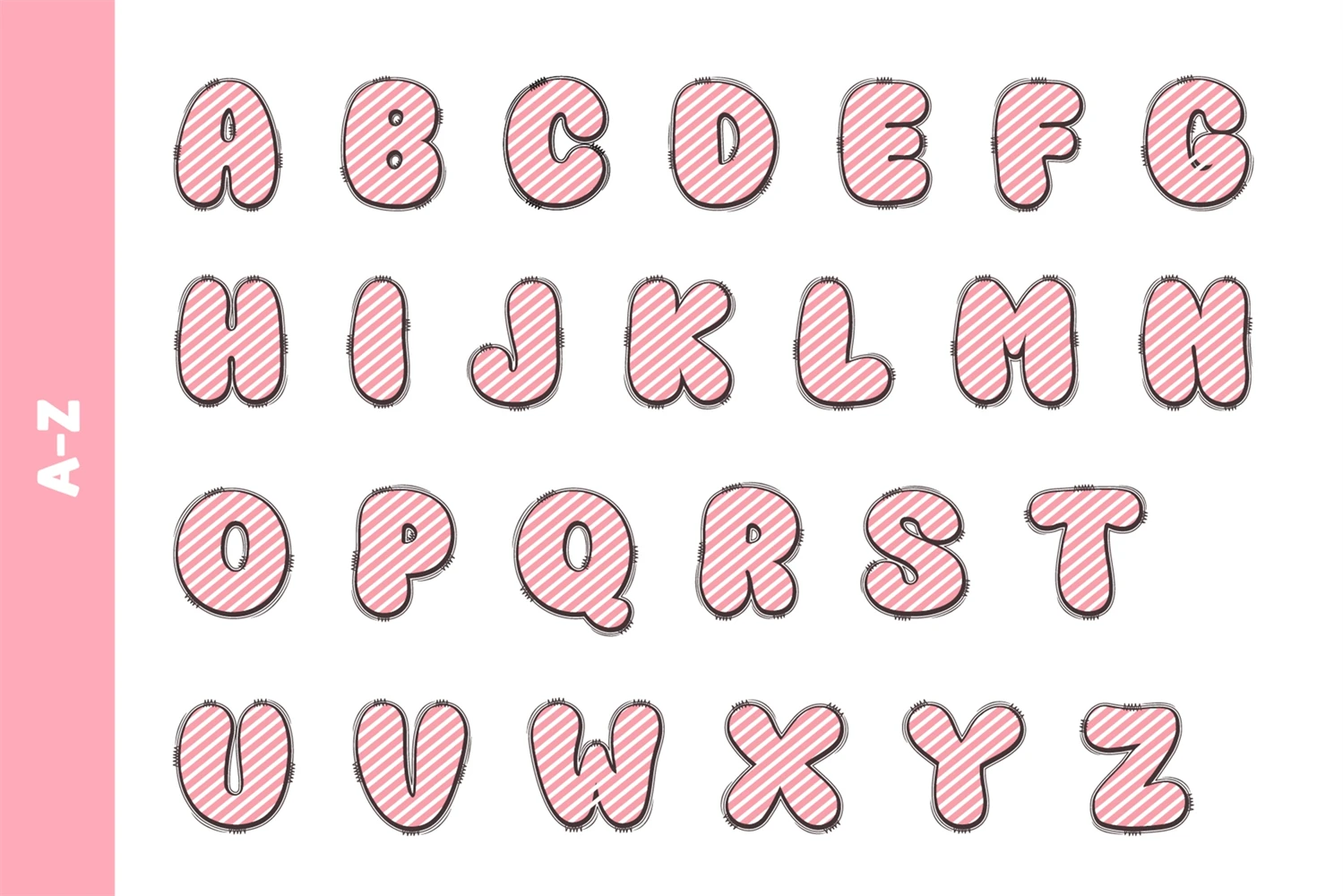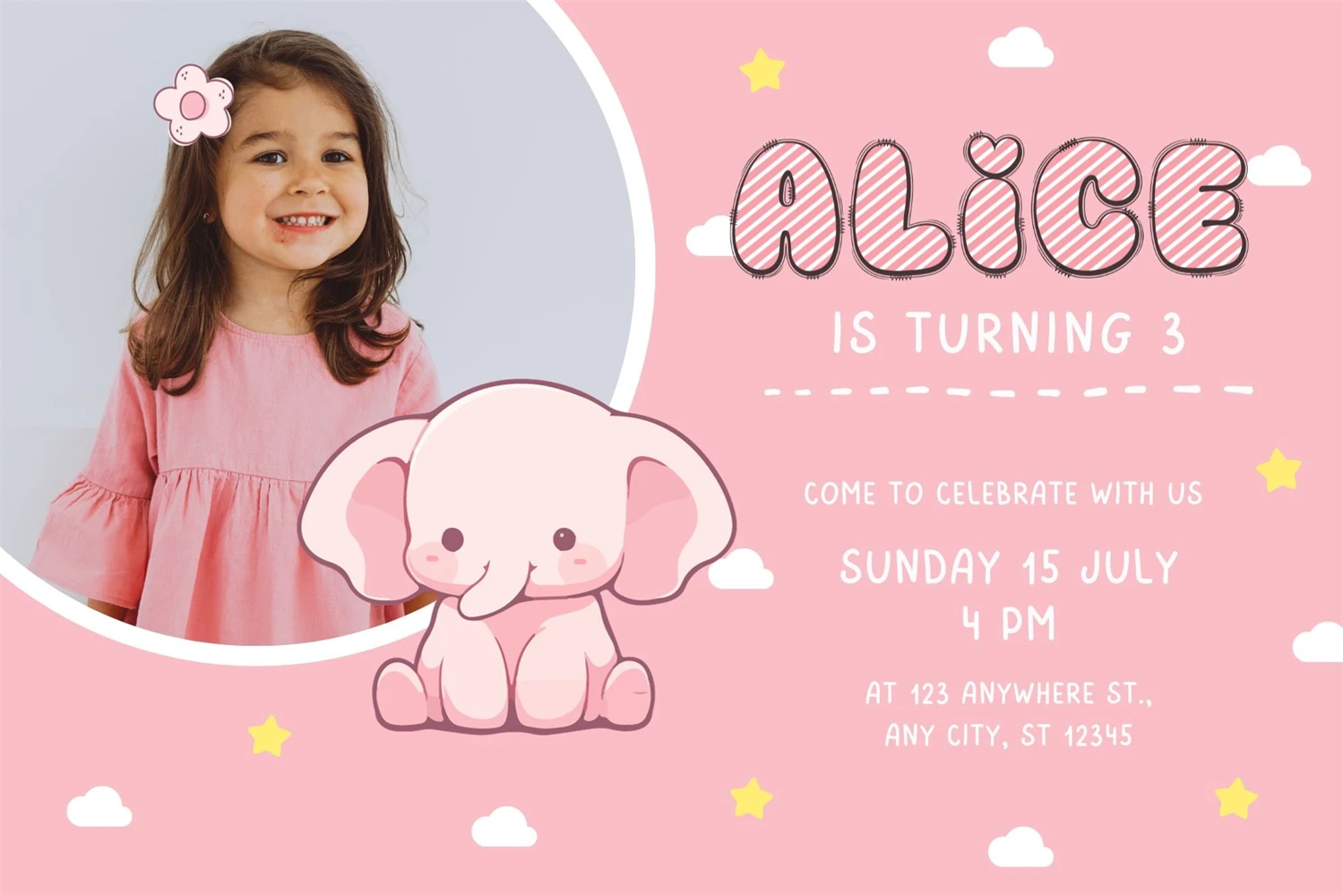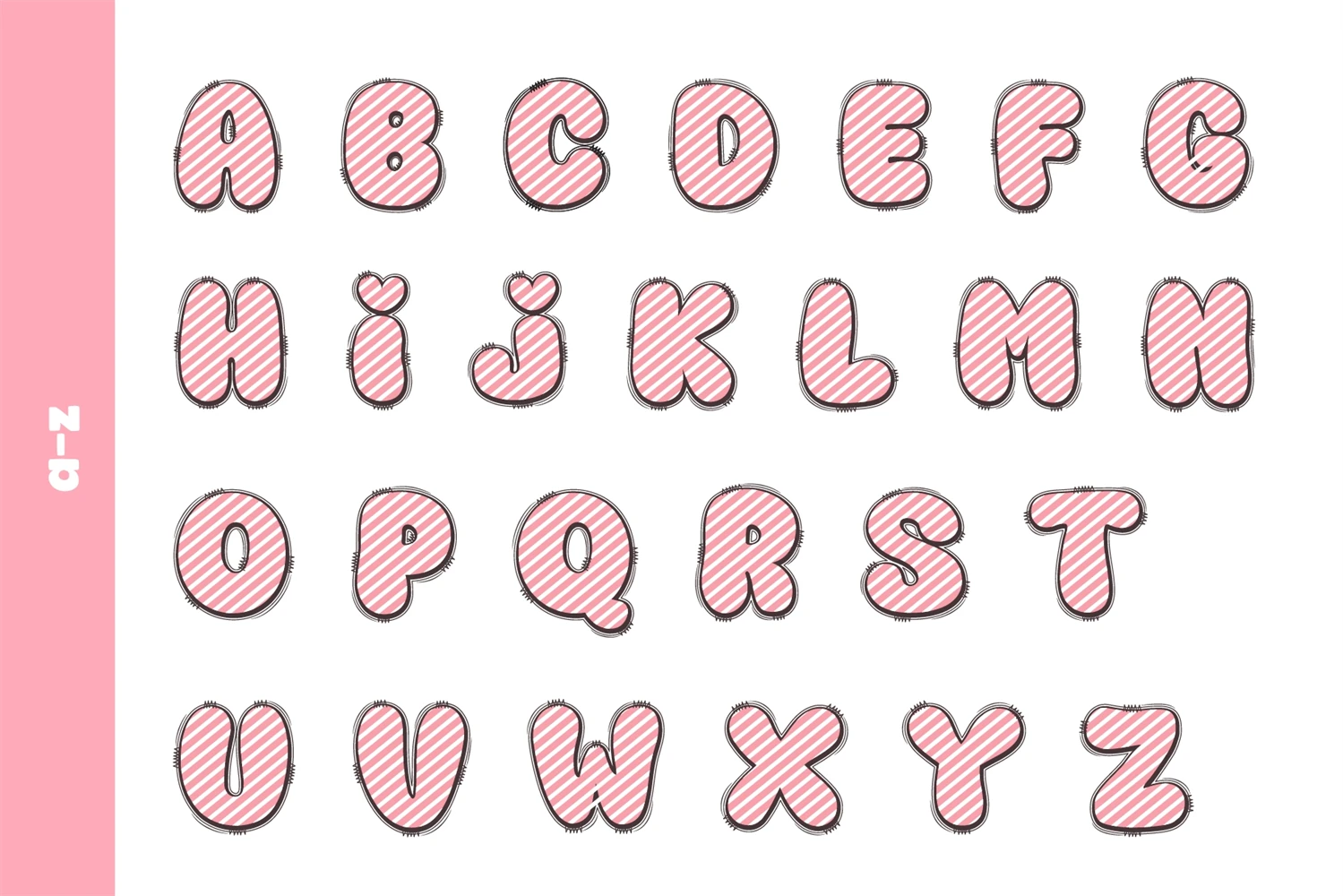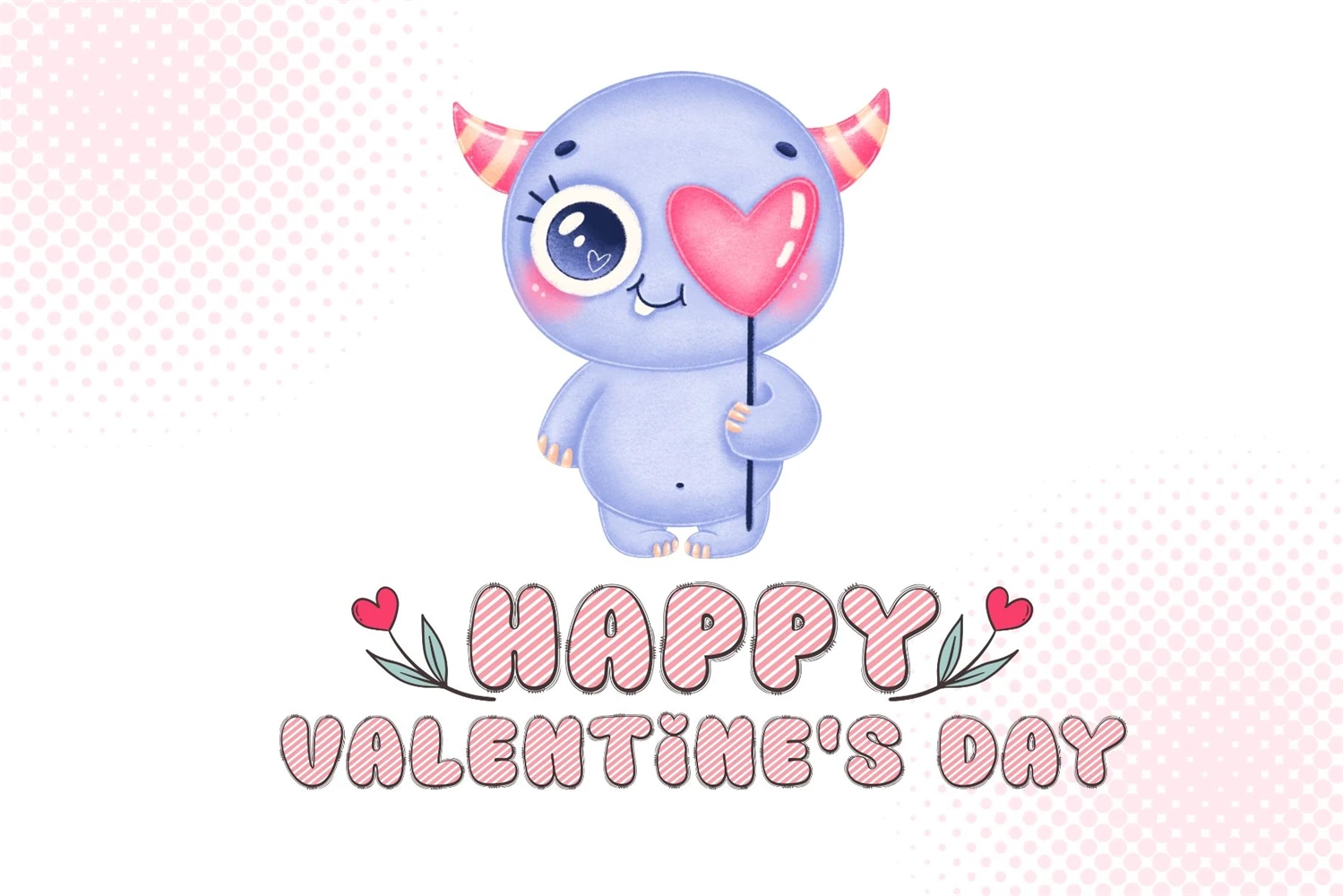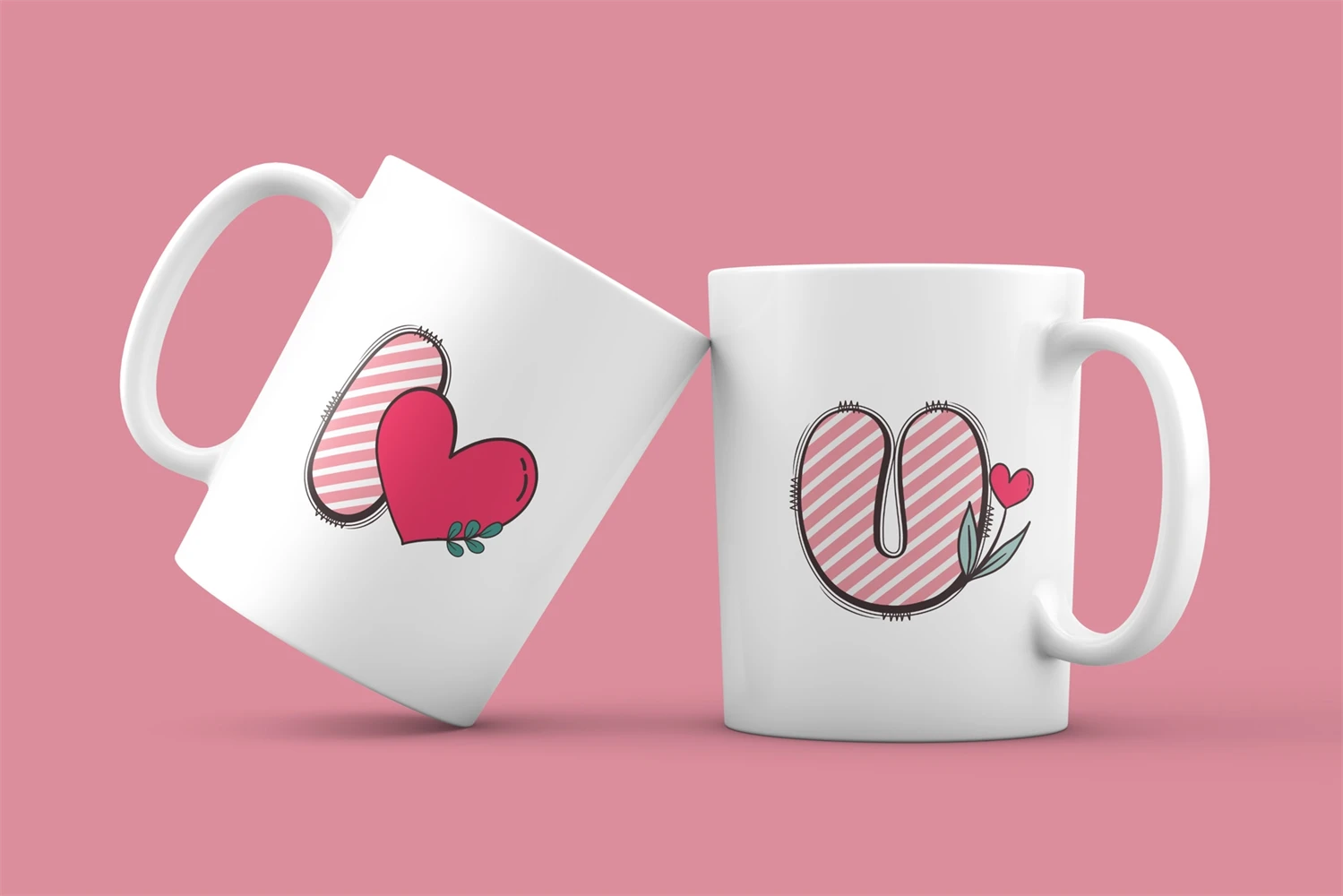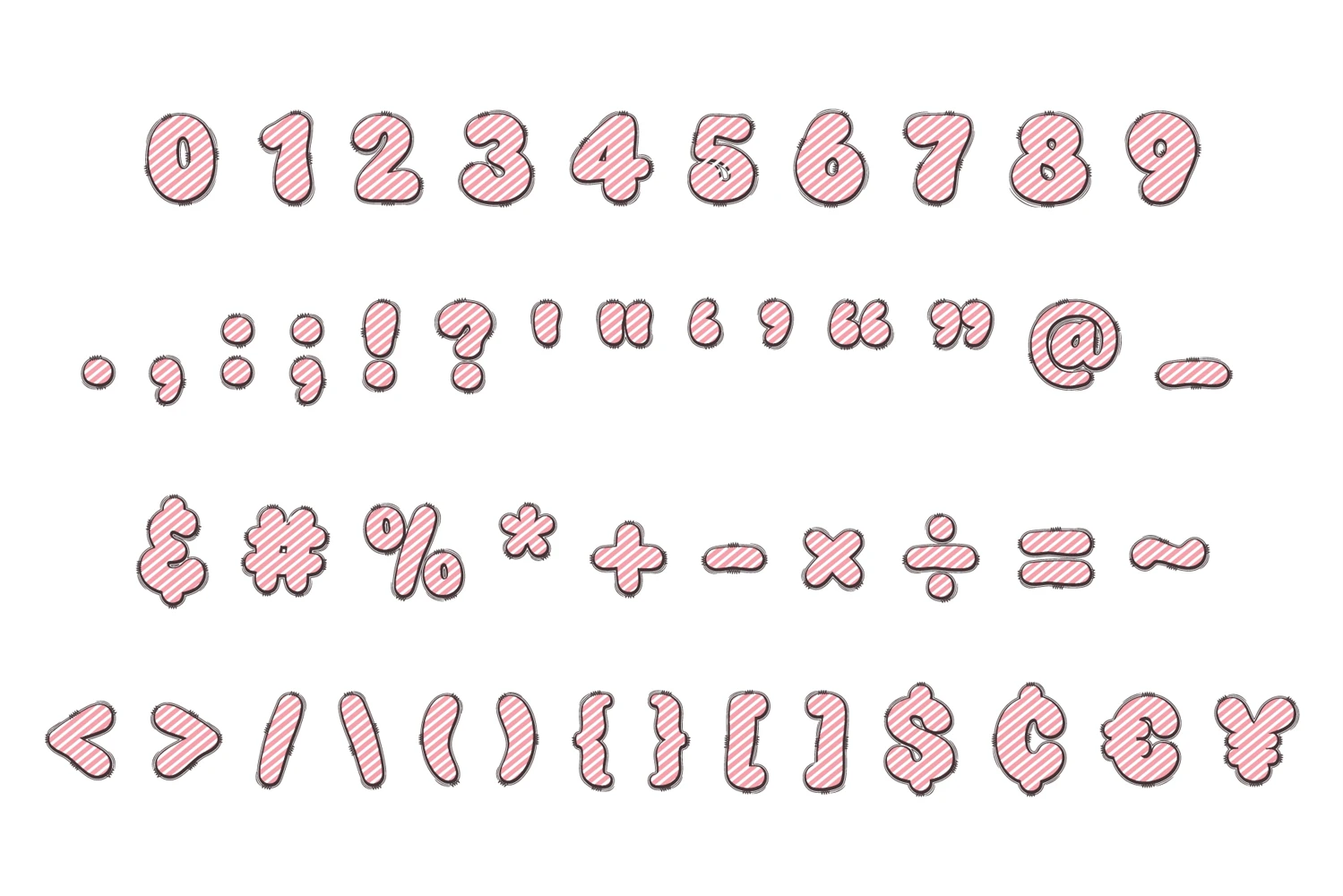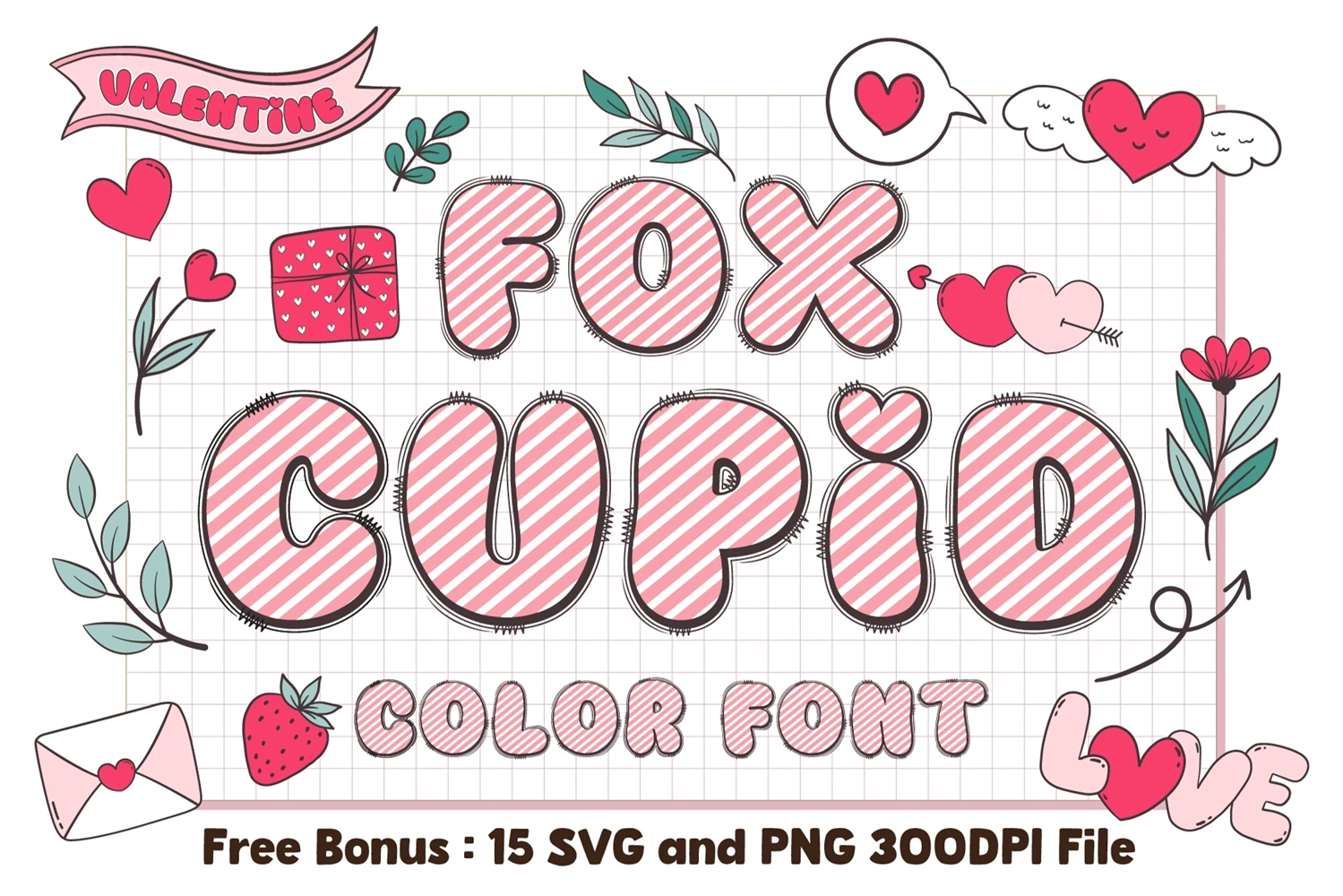
Fox Cupid is a cute and fun color display font. Fall in love with its authentic feel and use it to create gorgeous invitations, beautiful stationary art, eye-catching social media posts, and cute greeting cards. Add this beautiful font to each of your creative ideas, and notice how it makes them stand out.